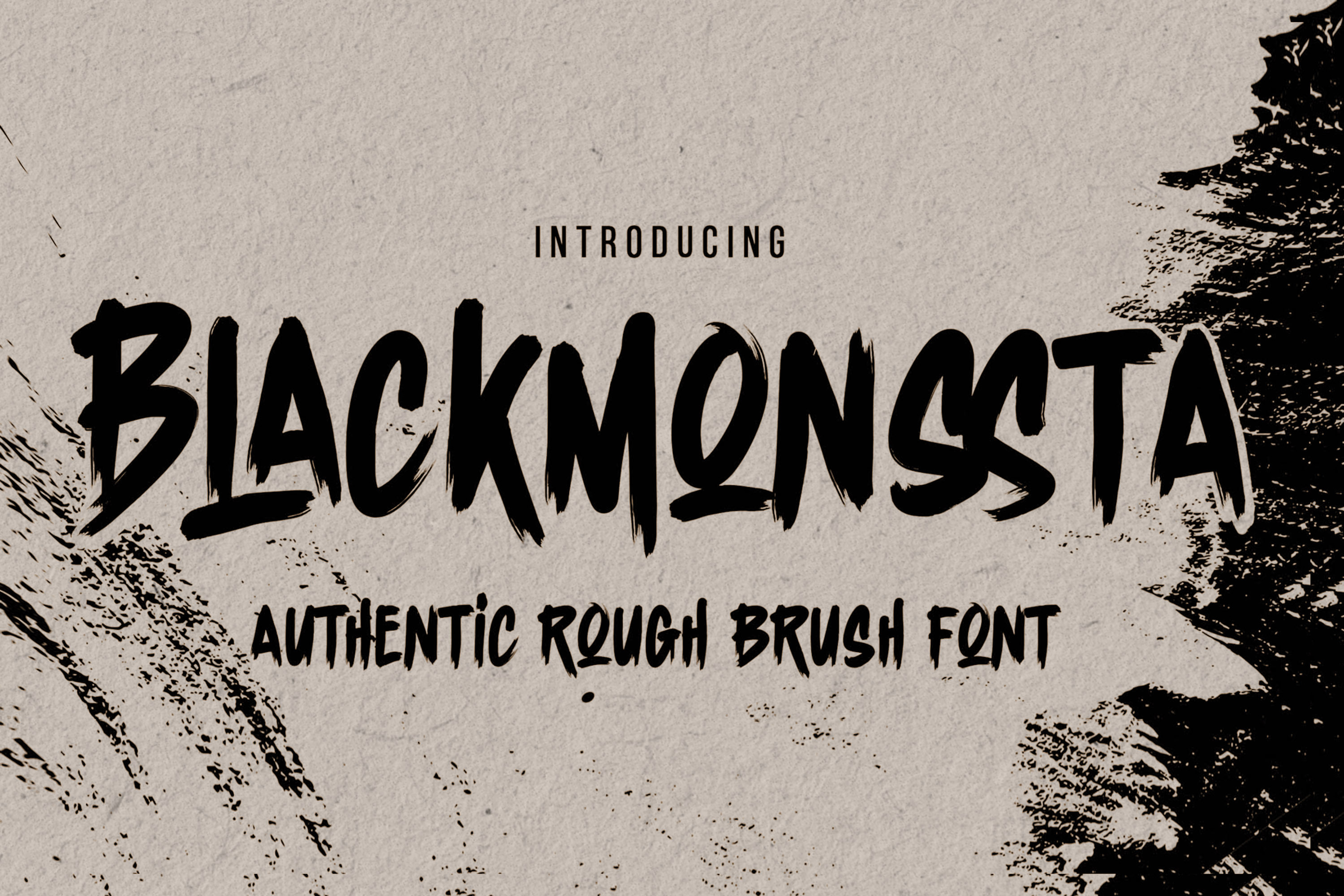
Blackmonssta – Authentic Brush Font
Blackmonssta is an authentic rough brush typeface created with energetic strokes, bold textures, and expressive hand-drawn character. Designed to capture the raw intensity of brush lettering, this font delivers a dynamic, aggressive, and artistic presence perfect for designs that demand power, motion, and high-impact visuals. Its jagged edges, natural stroke variations, and paint style textures give Blackmonssta a wild handcrafted feel that stands out instantly. This typeface blends raw artistic chaos with striking readability, making it highly effective for bold branding and dramatic display compositions.
STYLE & FEEL
rough • brush • bold • energetic • expressive • handcrafted